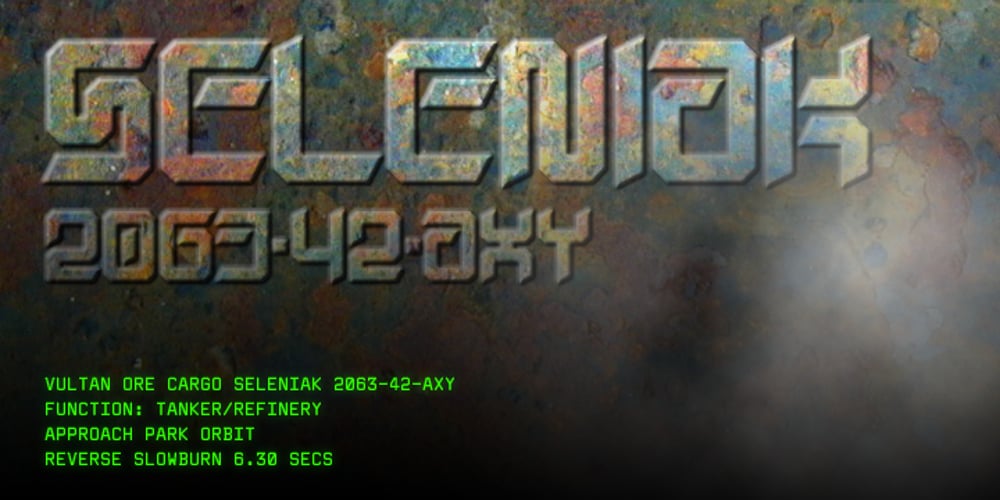
Seleniak
Seleniak font
Seleniak Font Family was designed by Javier Cos and published by Crestaco. Seleniak contains 1 styles and family package options. Seleniak’s outlines are based on the logo of the eponymous MSX video game, also created by its designer. Thus, all ratios are multiples of the typical 8×8 px video character unit, giving the typeface a characteristic appearance and interesting fitting properties.